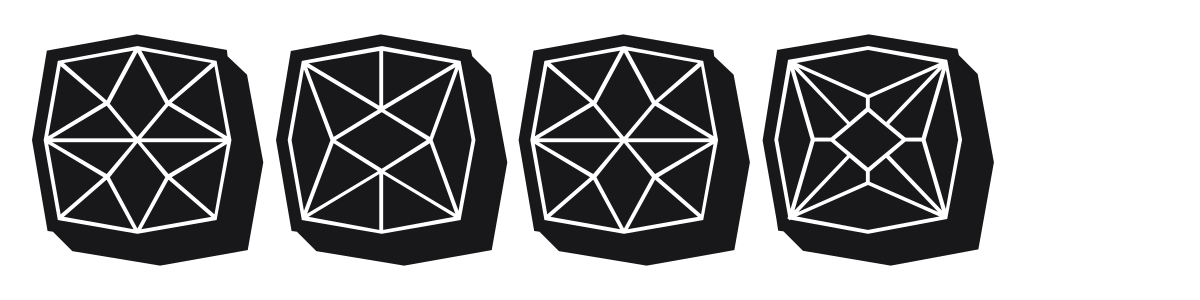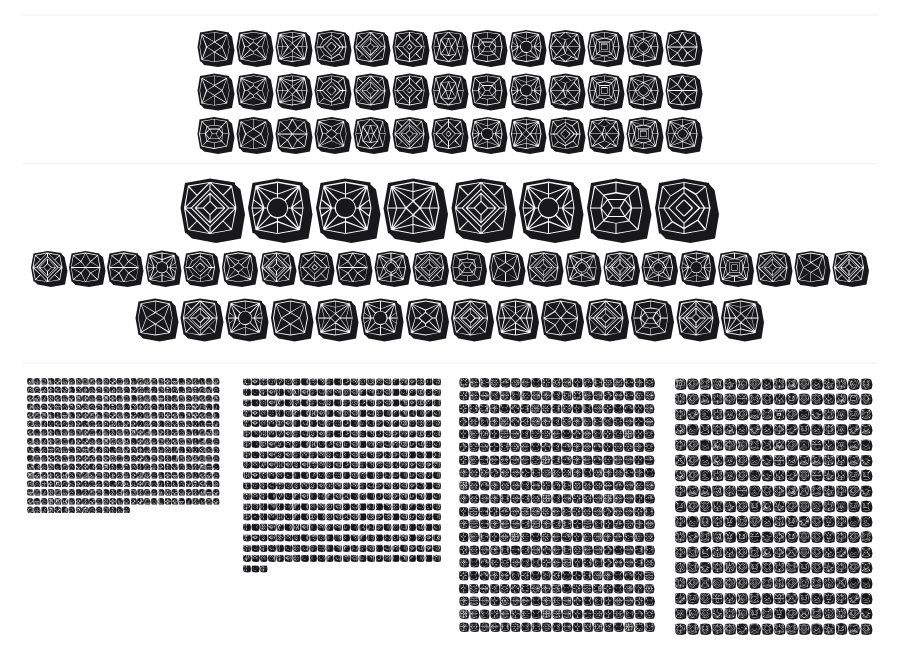
Maumbo
Maumbo is a dingbat font built from a collection of bold, gem-like medallion glyphs, each enclosed in a chunky rounded-square frame. The interior of every symbol features a distinct geometric pattern, from radial starbursts to concentric diamonds, all rendered in crisp black-and-white linework. The result is a versatile set of ornamental stamps that work in pattern-making, packaging, and decorative print contexts.